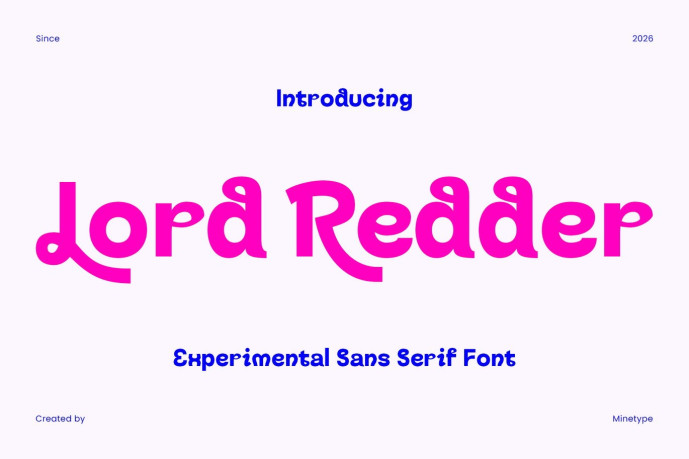
Lord Redder – Sans Serif Font
Designer: Panca Hasan
Introducing Lord Redder – Experimental Sans Serif Font, a bold and playful display typeface designed to break conventional typography rules. Featuring unique experimental letterforms, eye-catching ligatures, and distinctive alternates, Lord Redder brings a fresh and creative personality to every design project.
With its fun, quirky, and expressive character, Lord Redder is perfect for branding, packaging, logos, posters, children’s products, editorial headlines, social media graphics, merchandise, and any project that needs a memorable and unconventional visual style.
The extensive alternate characters and creative ligatures allow you to build unique wordmarks and custom typography with ease, making every design feel handcrafted and original.